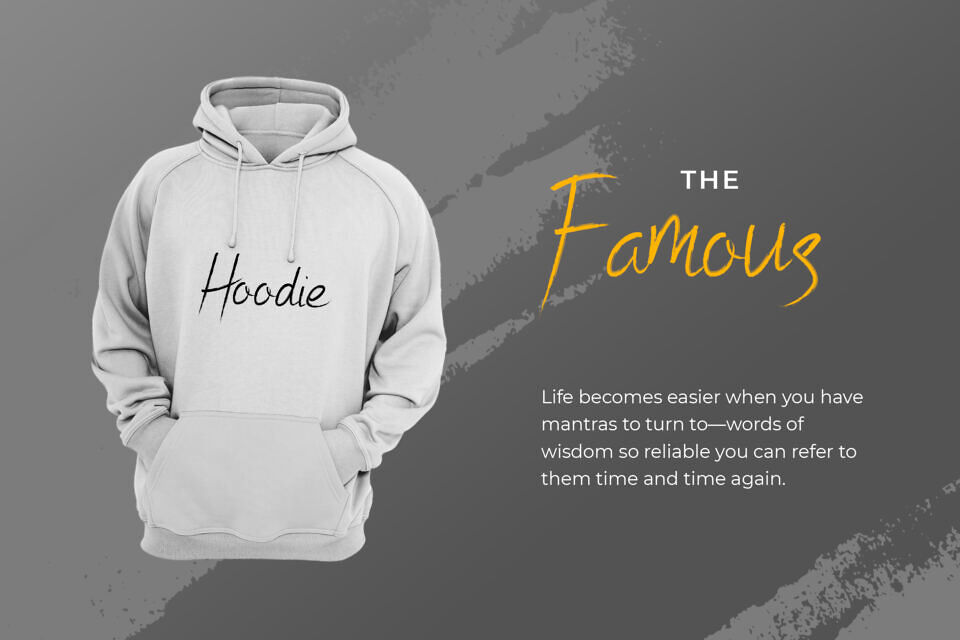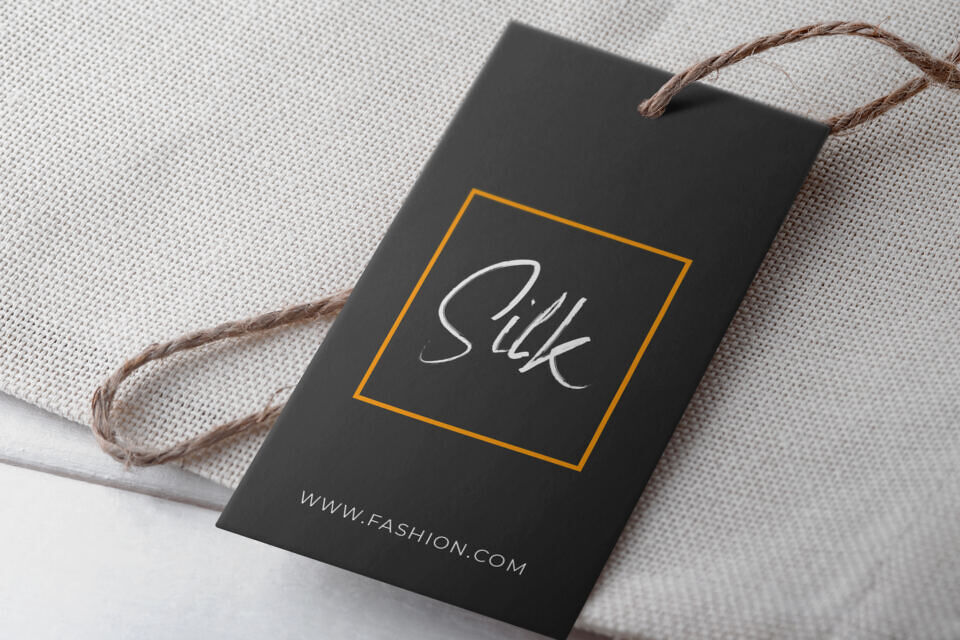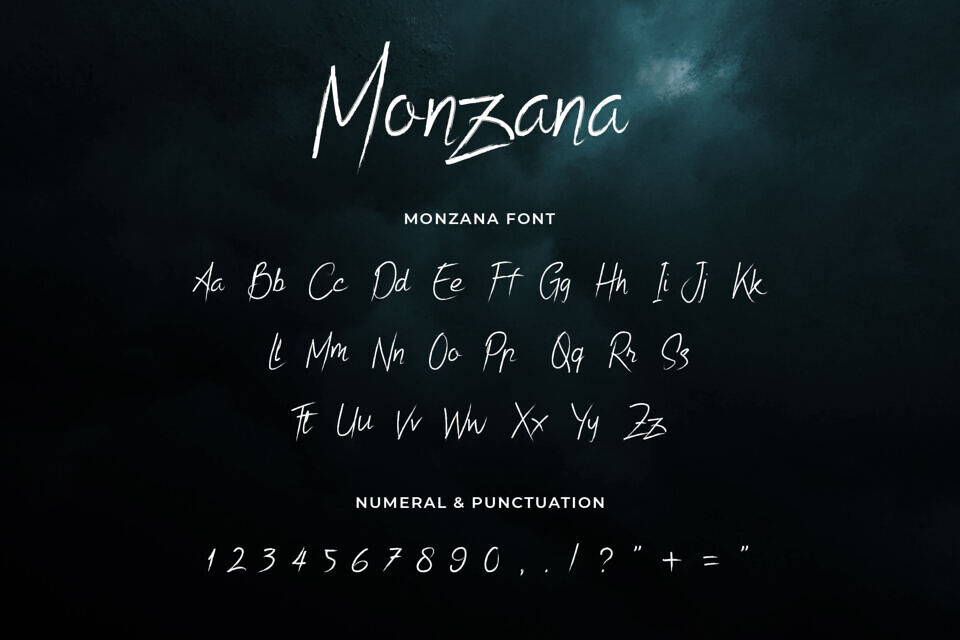
Monzana Font
Monzana Brush is a contemporary font with a natural, hand-brushed look. Its distinctive curve, grunge effect, and rough texture make it versatile for various design projects.
Suitable for both long and short texts, it’s ideal for Instagram, quotes, product brands, logos, and more. The font includes numeric and punctuation elements, making it a convenient choice for a range of applications, from social media to book covers and magazines.